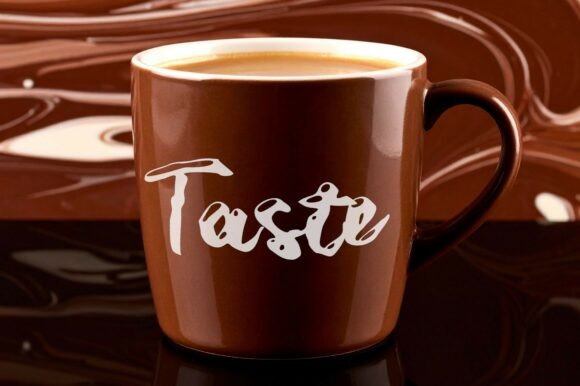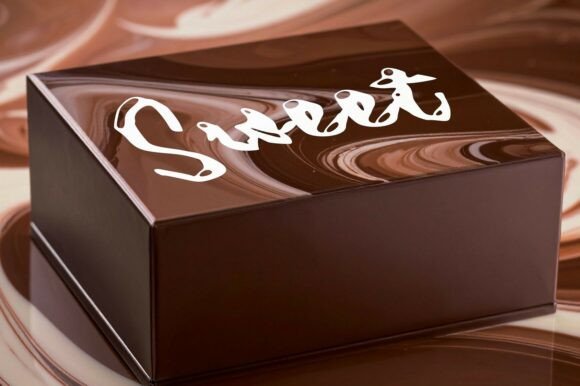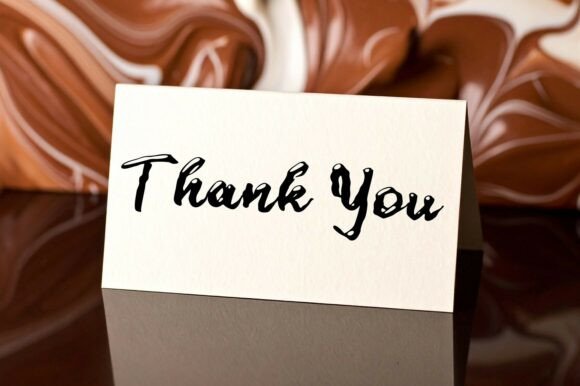
Unveiling the Exquisite Coklat Lumer Font: A Symphony of Elegance and Decadence
Immerse yourself in an extraordinary symphony of elegance and decadence with the exquisitely crafted Coklat Lumer font. This stunning script font echoes the velvety allure of silky smooth chocolate, mesmerizing, lavish, and tantalizingly pleasing to the eye. Its polished shine and pleasingly curved contours make Coklat Lumer a melodious incarnation of grace and warmth.
The Art of Coklat Lumer: A Masterpiece of Typography
Coklat Lumer flaunts a unique molten quality, almost like artisanal chocolate artfully spilling onto the canvas. The refreshing variation in line thickness coupled with impeccably flowing letters creates a botanic and tailor-made ambience. This marriage of chic sophistication and warm invitation elevates your text from plain phrases to an enchanting experience that leaves an everlasting trace of sumptuous indulgence.
Design Elements: The Beauty of Coklat Lumer
One of the standout features of Coklat Lumer is its intricate design elements. The font boasts interconnected upper and lowercase letters, creating a seamless flow that’s reminiscent of luxurious calligraphy. The elegant swashes and flourishes add a touch of sophistication, making Coklat Lumer perfect for high-end branding, packaging, and editorial design.
Coklat Lumer is a dream come true for designers and crafters looking to add a touch of luxury to their projects. Whether you’re working on a branding campaign, a wedding invitation, or a handmade craft, this font is sure to impress. Its versatility and elegance make it suitable for a wide range of applications, from digital design to print materials.
The Benefits of Using Coklat Lumer
So, what sets Coklat Lumer apart from other fonts? Here are just a few benefits of using this exquisite font:
- Elegance and sophistication: Coklat Lumer adds a touch of luxury to any project, making it perfect for high-end branding and design.
- Versatility: This font is suitable for a wide range of applications, from digital design to print materials.
- Unique and eye-catching: Coklat Lumer’s molten quality and intricate design elements make it stand out from other fonts.
- Easy to read: Despite its ornate design, Coklat Lumer is surprisingly easy to read, making it perfect for body text and headlines.
Tips for Using Coklat Lumer
To get the most out of Coklat Lumer, here are a few tips to keep in mind:
- Use it sparingly: While Coklat Lumer is a stunning font, it’s best used sparingly to avoid overwhelming the reader.
- Pair it with a sans-serif font: For body text, pair Coklat Lumer with a clean sans-serif font to create a striking contrast.
- Experiment with colors: Coklat Lumer looks stunning in a range of colors, from rich browns to metallic golds.
In conclusion, Coklat Lumer is a truly exceptional font that’s sure to delight designers and crafters alike. Its unique blend of elegance, sophistication, and whimsy makes it perfect for a wide range of applications. Whether you’re looking to add a touch of luxury to your branding, create a stunning editorial design, or simply add some flair to your handmade crafts, Coklat Lumer is the perfect choice. So why wait? Plunge into the intricate world of Coklat Lumer and discover the magic for yourself.